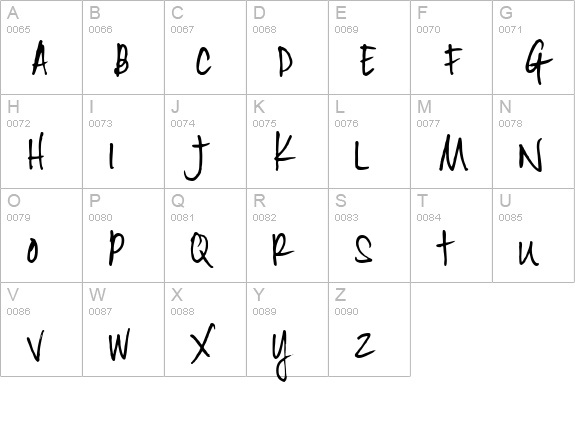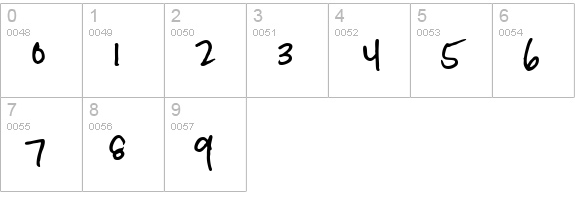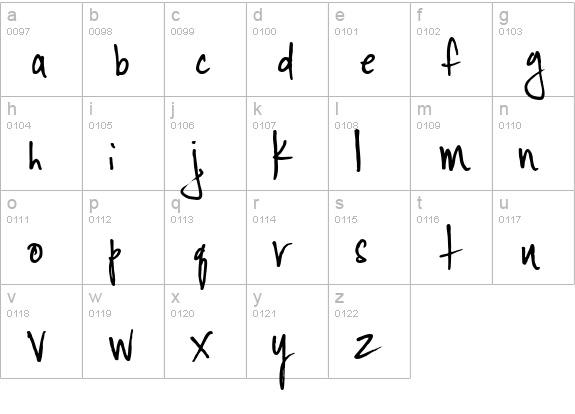
CinahandAlternate Light Font Details
CinahandAlternate Light is a refined, elegant variant in the CinahandAlternate typeface family \xE2\x80\x94 well suited to elegant body text, refined sub-headings, and luxury branding.
CinahandAlternate Light font is a modern and stylish typeface that exudes elegance and sophistication. With its delicate yet bold strokes, this font is perfect for adding a touch of class to any design project. The CinahandAlternate Light font is free to download at FontsMarket.com, making it easily accessible for all designers and creatives looking to elevate their work with a touch of luxury. Its versatility and timeless charm make it a must-have in any font collection. Whether you're designing a logo, creating invitations, or crafting a brand identity, CinahandAlternate Light font is sure to make a statement and leave a lasting impression. Download it today and add a touch of refinement to your designs.